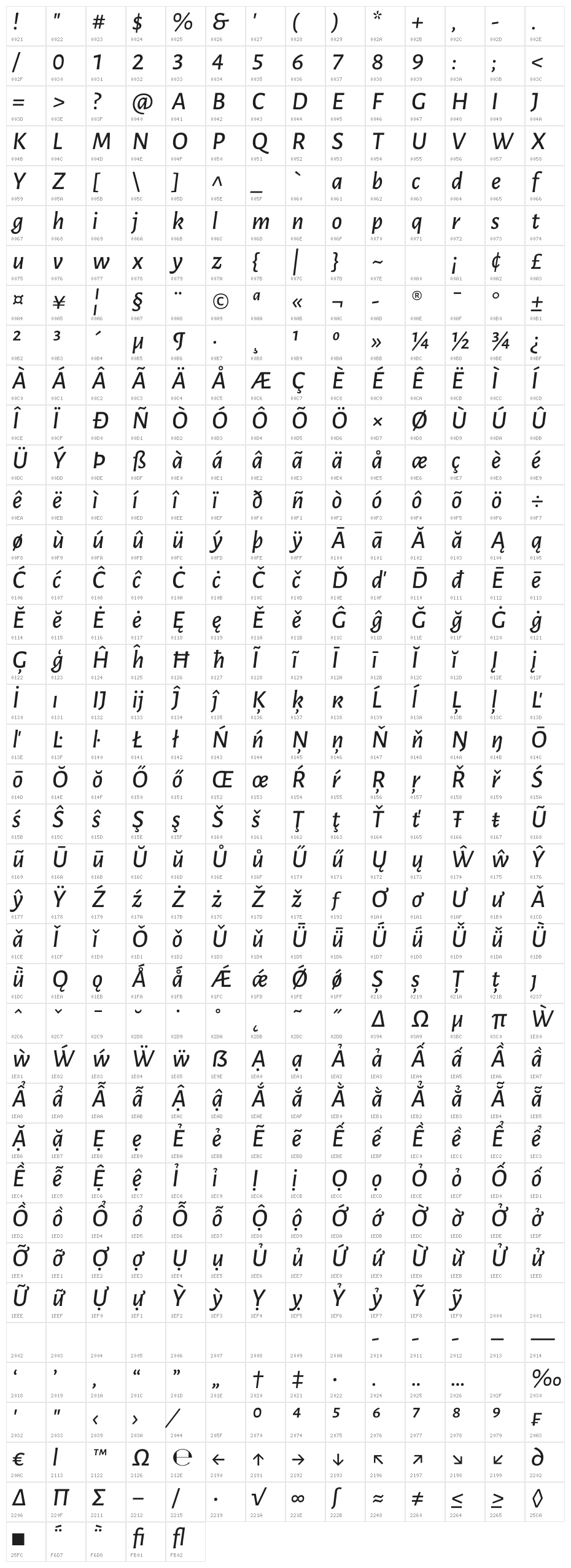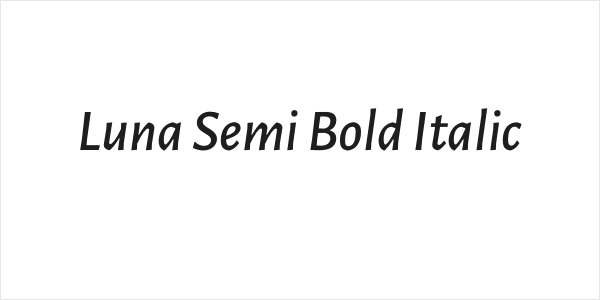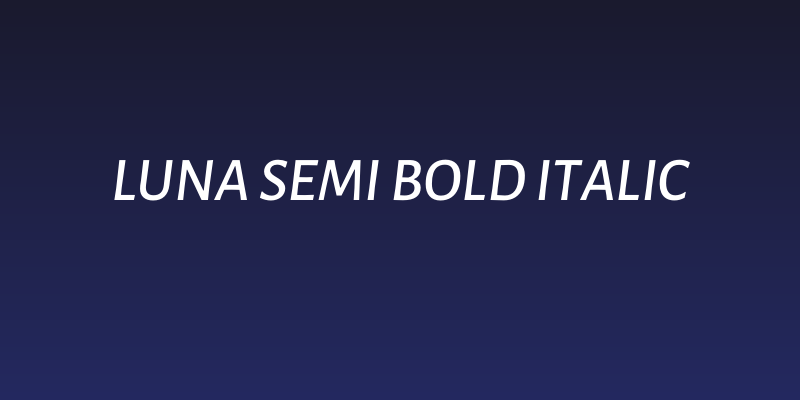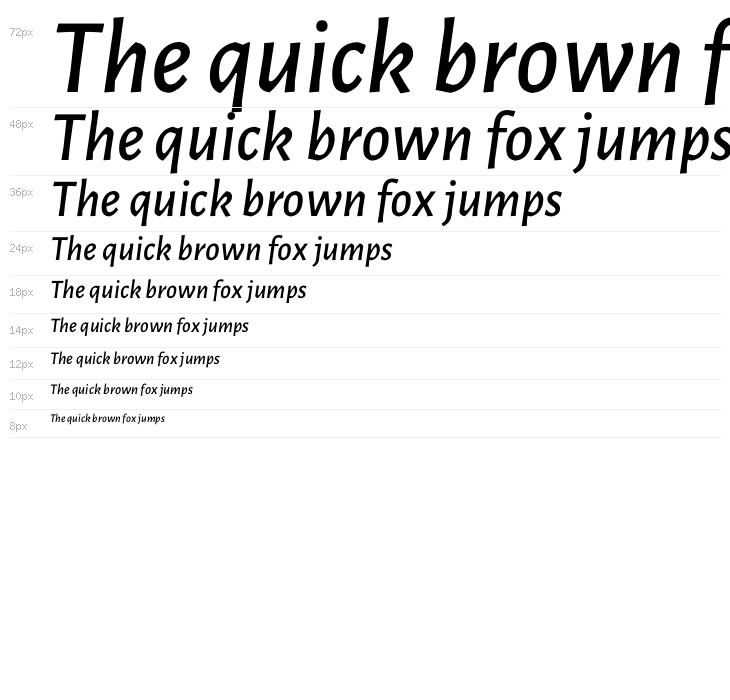
Luna Semi Bold Italic Font
Luna Semi Bold Italic Description
This font exhibits a dynamic and elegant style with a semi-bold weight and italic slant, offering a modern yet classic appeal. The characters are slightly condensed, providing a sleek and streamlined appearance. The strokes are consistent, with medium contrast that enhances readability while maintaining a sophisticated look. The font's design is versatile, making it suitable for various applications where a touch of elegance and emphasis is desired. Its italic nature adds a sense of motion and fluidity, making it ideal for creative and expressive projects.
| Use Case | Headlines, Logos, Editorial design |
| Proposed Projects | Ideal for branding, editorial design, fashion magazines, and elegant invitations. |